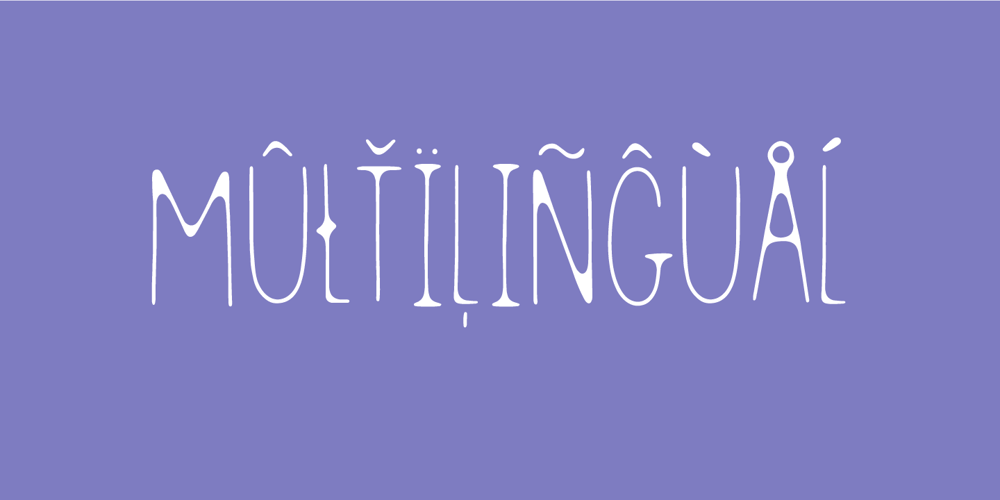
Vegetable Shampoo
Vegetable Shampoo font
Vegetable Shampoo Font Family was designed by Jakob Fischer and published by PizzaDude.dk. Vegetable Shampoo contains 3 styles and family package options. I remember as a kid, having a shampoo that smelled like carrot. It even looked like carrot juice, so of course I had to taste it. And, of course It didn’t taste of carrot at all! This font is inspired by the tiny roots of the carrot, and the healthy taste. Comes with multilingual support, ligatures for double letters and fancy swashes